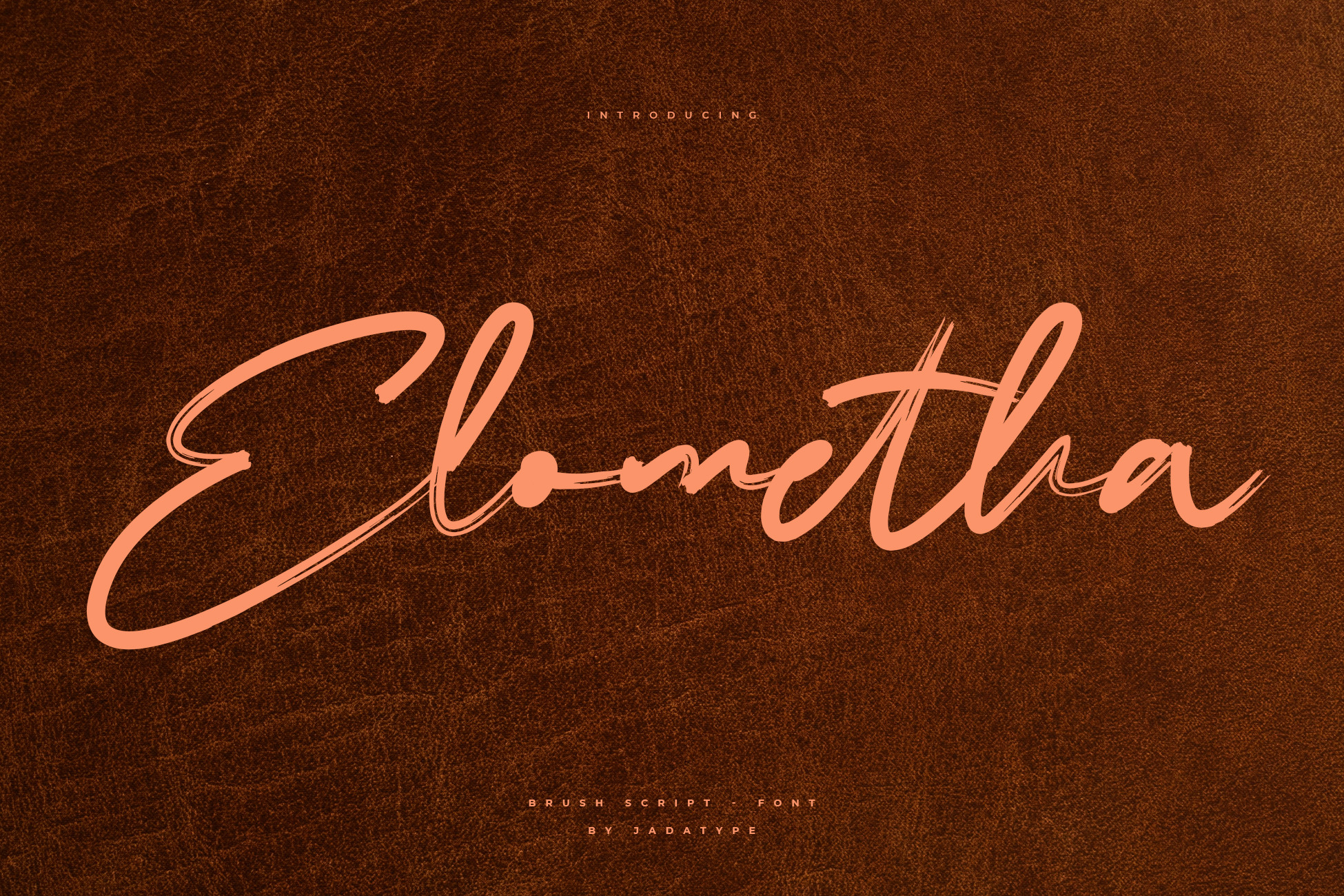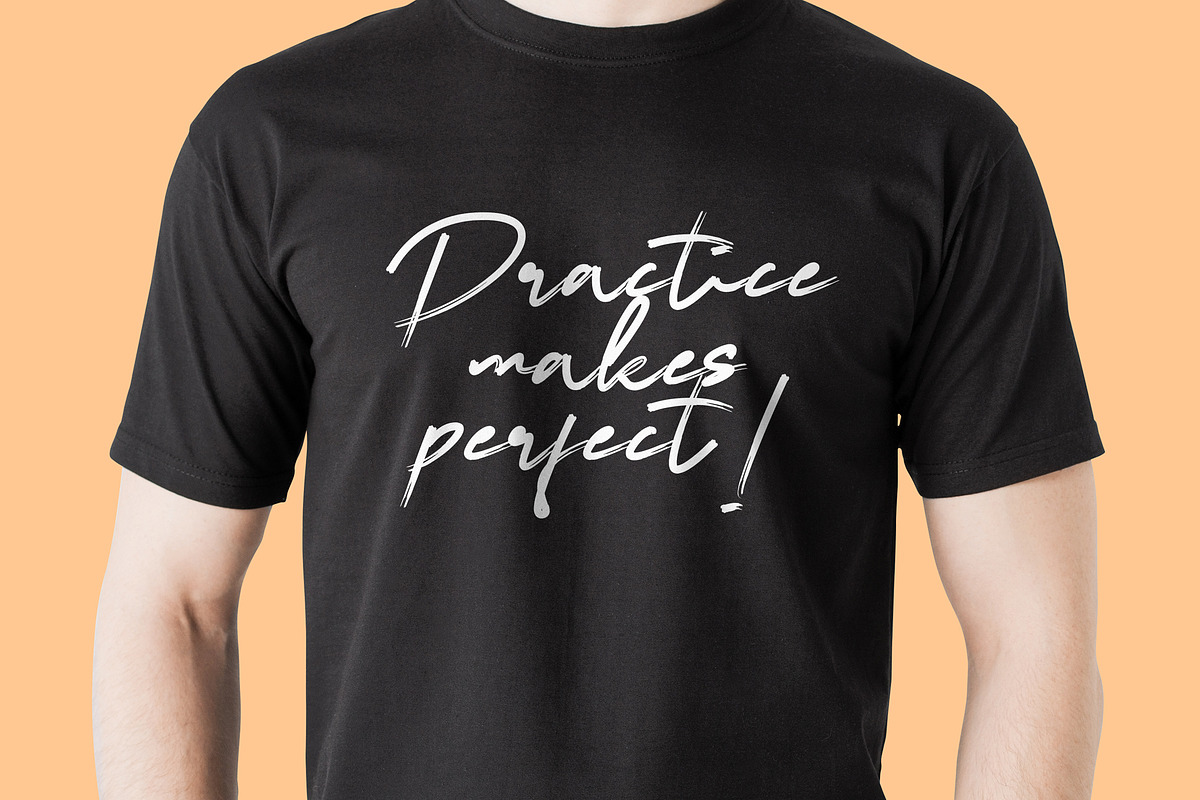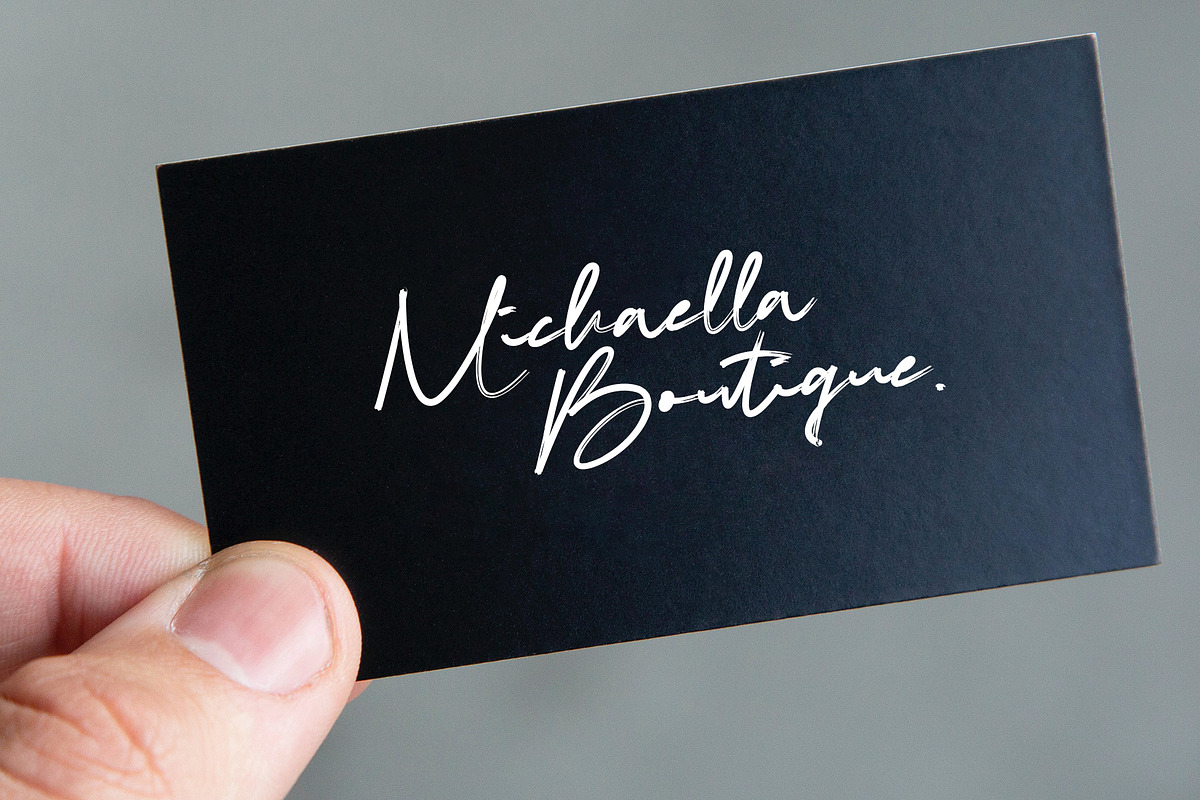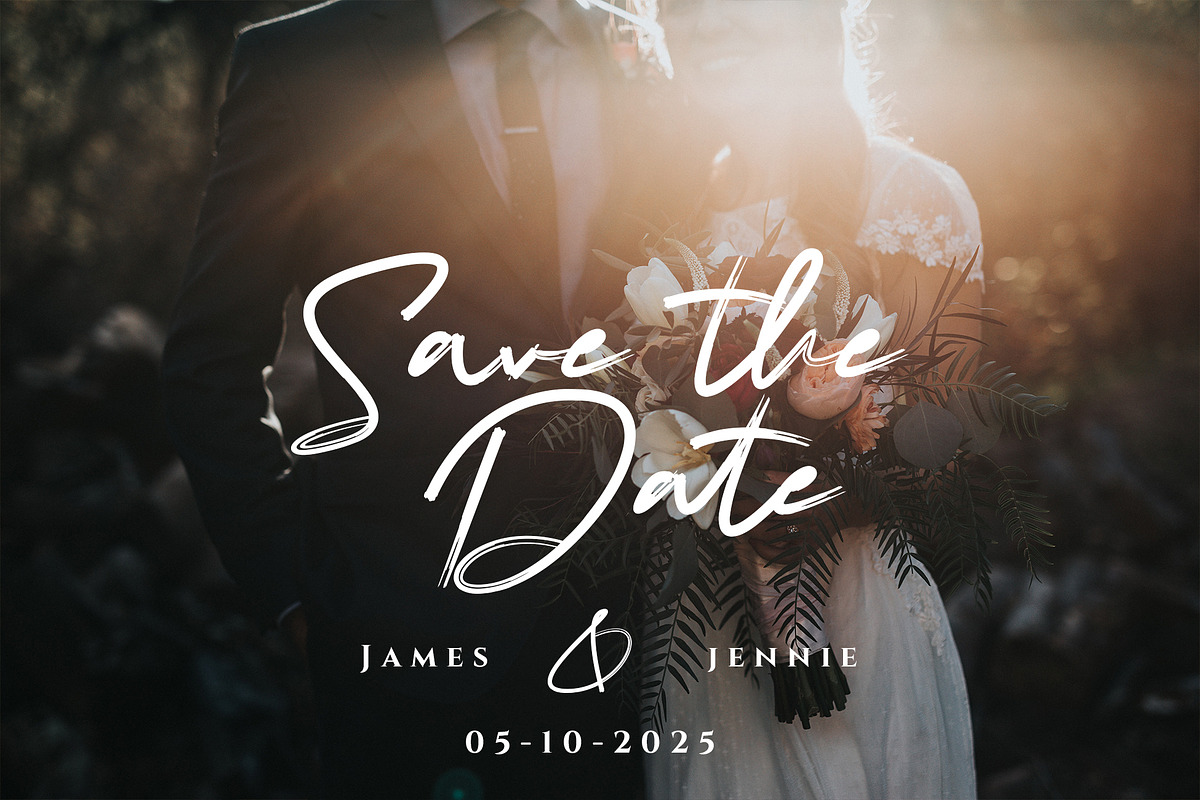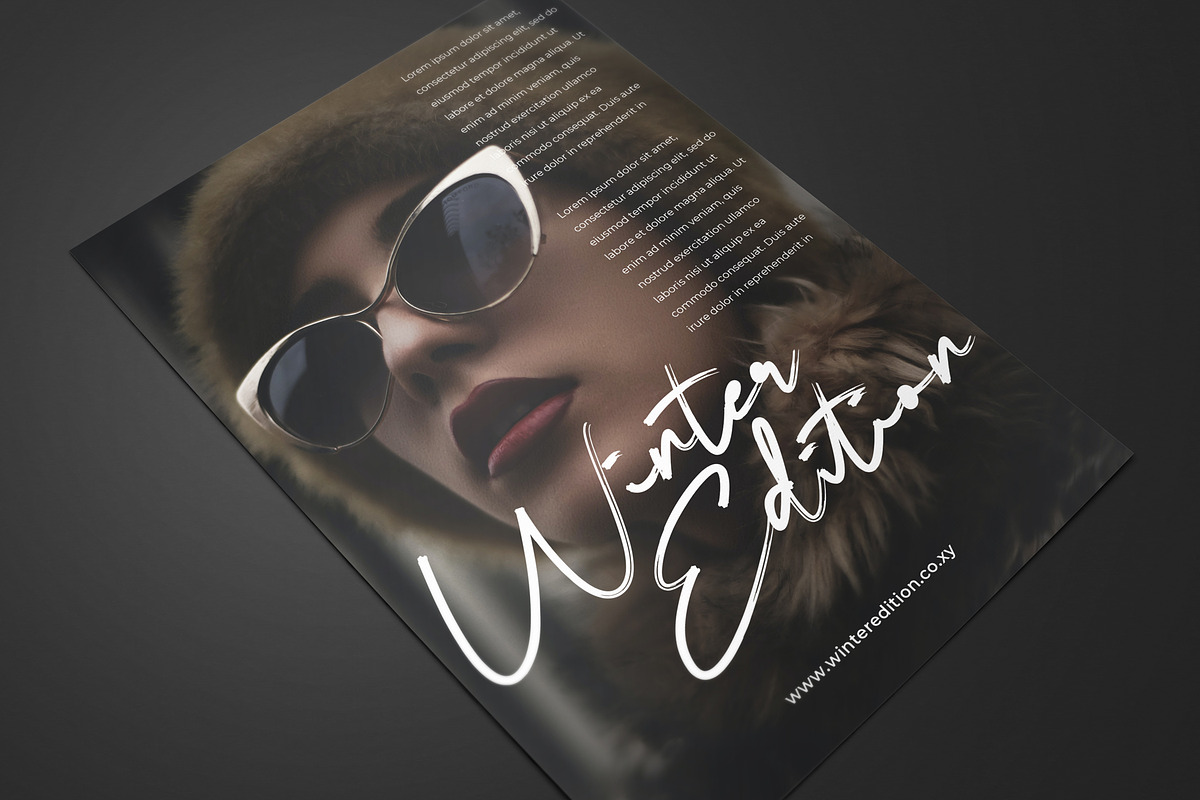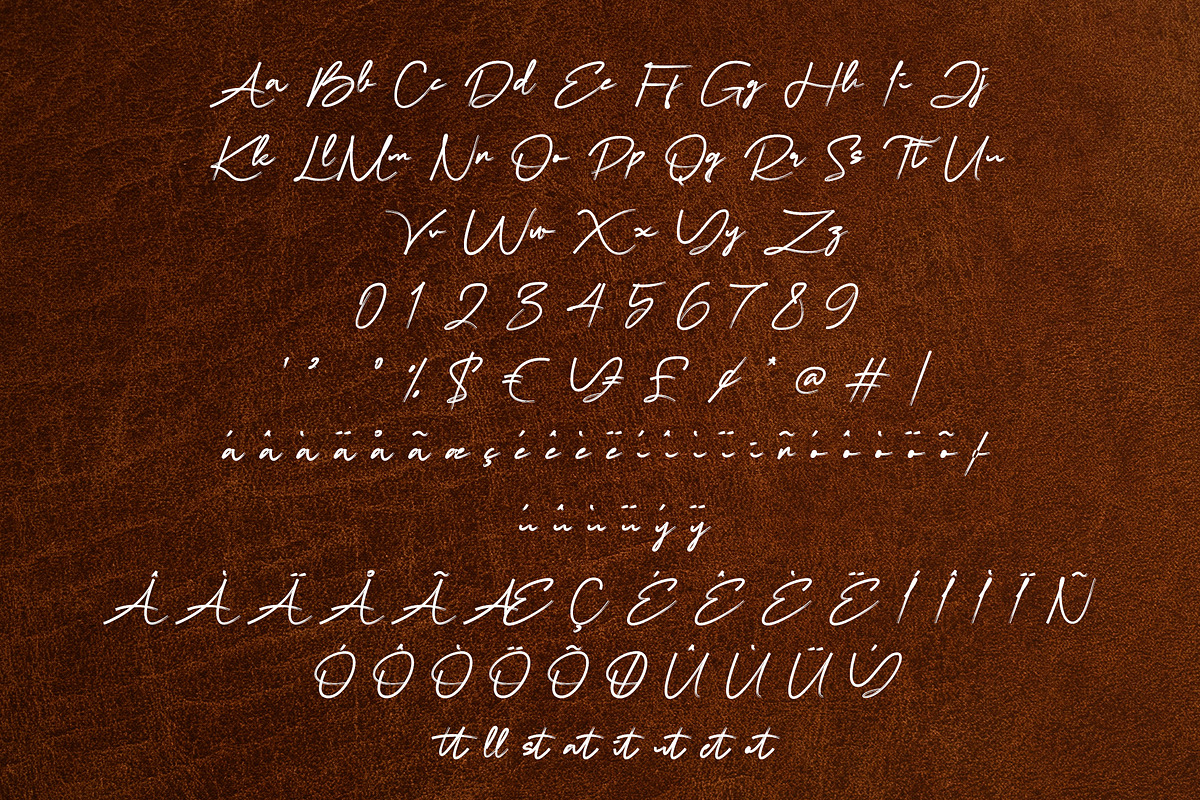
Elometha Font | Brush Script
Elometha is a font with a stylish brush handwritten. suitable for social media, branding, logotype, products, advertisement, and so on. contains standard English letters, numbers, punctuation, and several accents that support multilingualism. This File Contains: